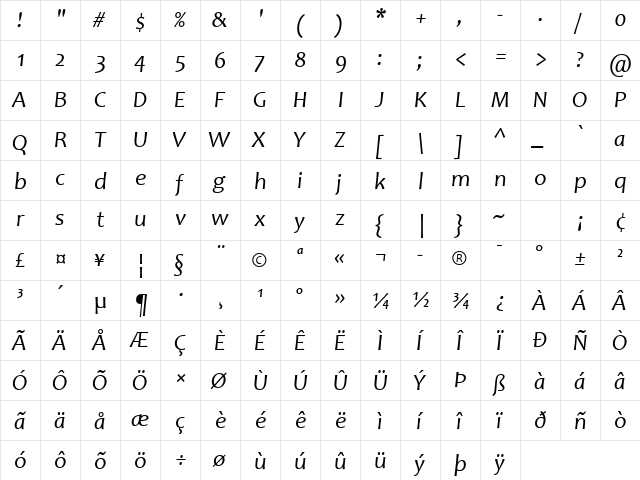
Candara Italic
| Foundry | Microsoft Corporation |
| Designer | Gary Munch |
Design Context for Candara Typeface
Candara is a composed and adaptable typeface that performs quietly and consistently across a wide range of design contexts. The dynamic lean of this cut emphasises speed and emphasis in any layout.